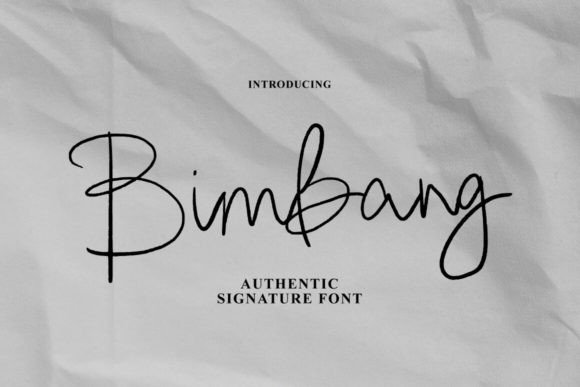
The Bimbang Font: A Handmade Calligraphy Dream
I still remember the design project that led me to discover the Bimbang font. I was working on a wedding invitation suite, and my client wanted a custom, hand-crafted feel that would make their special day truly unforgettable. As I scoured the internet for the perfect font, I stumbled upon Bimbang – and it was love at first sight! 💕
The elegant, dancing baseline and decorative characters instantly captured the whimsical, romantic essence of the wedding. I knew right then that Bimbang was the perfect fit. In this article, I’ll share my experience with this beautiful font, its features, and how to make the most of it in your designs.
An Honest Review of Bimbang Font
What I Love About Bimbang ✨
- 💫 Unique, handmade calligraphy style that adds a personal touch to any design
- 🔥 Decorative characters and swashes that create a beautiful, flowing rhythm
- ✅ Compatible with OpenType features, allowing for advanced typographic control
- 🎉 Perfect for creating stunning invitations, greeting cards, and other creative projects
While Bimbang is an amazing font, there are a few things to keep in mind:
- ⚠️ Limited use of uppercase letters, which can make it less suitable for certain designs
The Story Behind Bimbang Font
Bimbang is a carefully crafted font that reflects the artistry of its creator. While I couldn’t find much information on the font’s origins, it’s clear that the designer poured their heart and soul into creating a truly unique and beautiful typeface. Whether you’re a designer, crafter, or creative hobbyist, Bimbang is sure to inspire your next project.
Q: What type of projects is Bimbang best suited for?
A: Bimbang is perfect for creative projects that require a personal, handmade touch, such as wedding invitations, greeting cards, and posters.